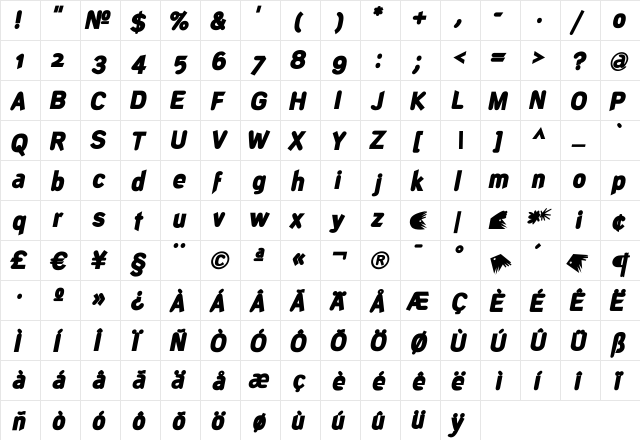
DeconStruct-BlackOblique Regular Font Preview
DeconStruct-BlackOblique Regular
Design Context for DeconStruct-BlackOblique Typeface
DeconStruct-BlackOblique offers clean, dependable letterforms without strong stylistic allegiance, making it a practical choice for designers who need flexibility. The dynamic lean of this cut emphasises speed and emphasis in any layout.
Pro Tip: Use DeconStruct-BlackOblique for emphasis, pull quotes, and subheadings where its slanted energy can add rhythm to the layout.